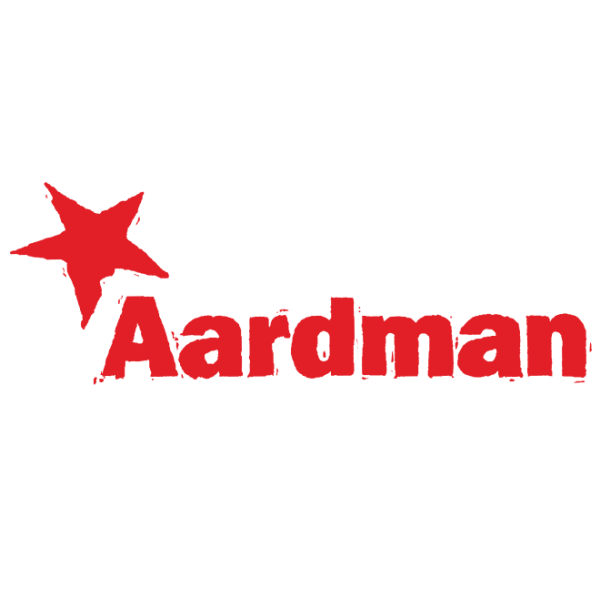
Aardman Font
AnimationAardman Animations is a British animation studio that is best known for its claymation films and characters such as Wallace and Gromit.
The logo for Aardman Animations was likely created using ITC Franklin Gothic Heavy, a sans serif font with a grotesque style that was originally designed by Morris Fuller Benton for ATF.